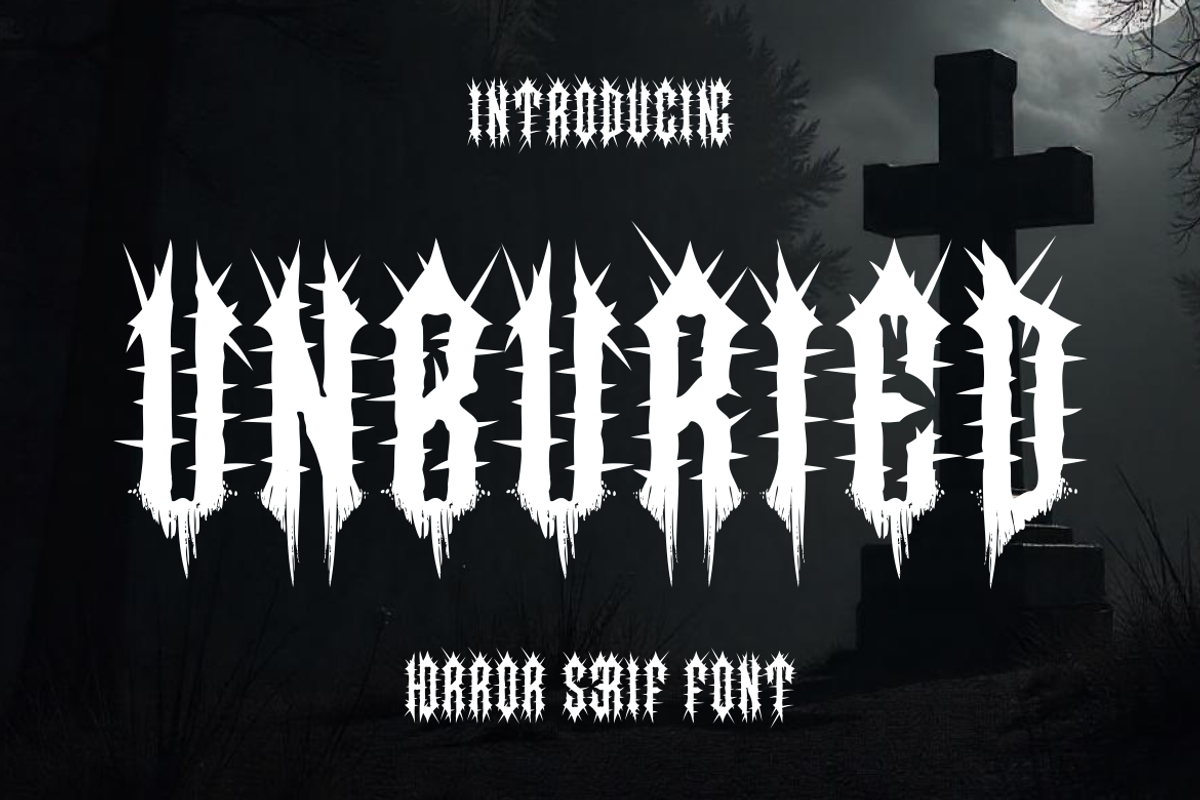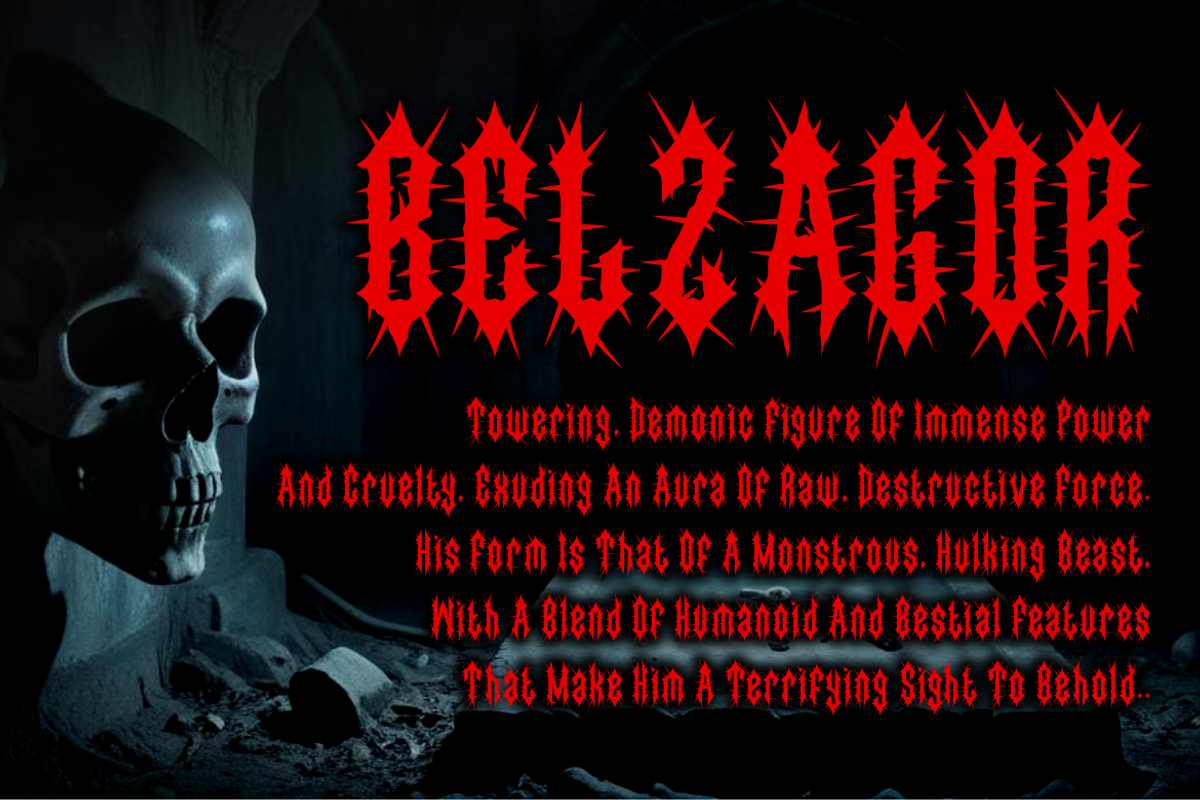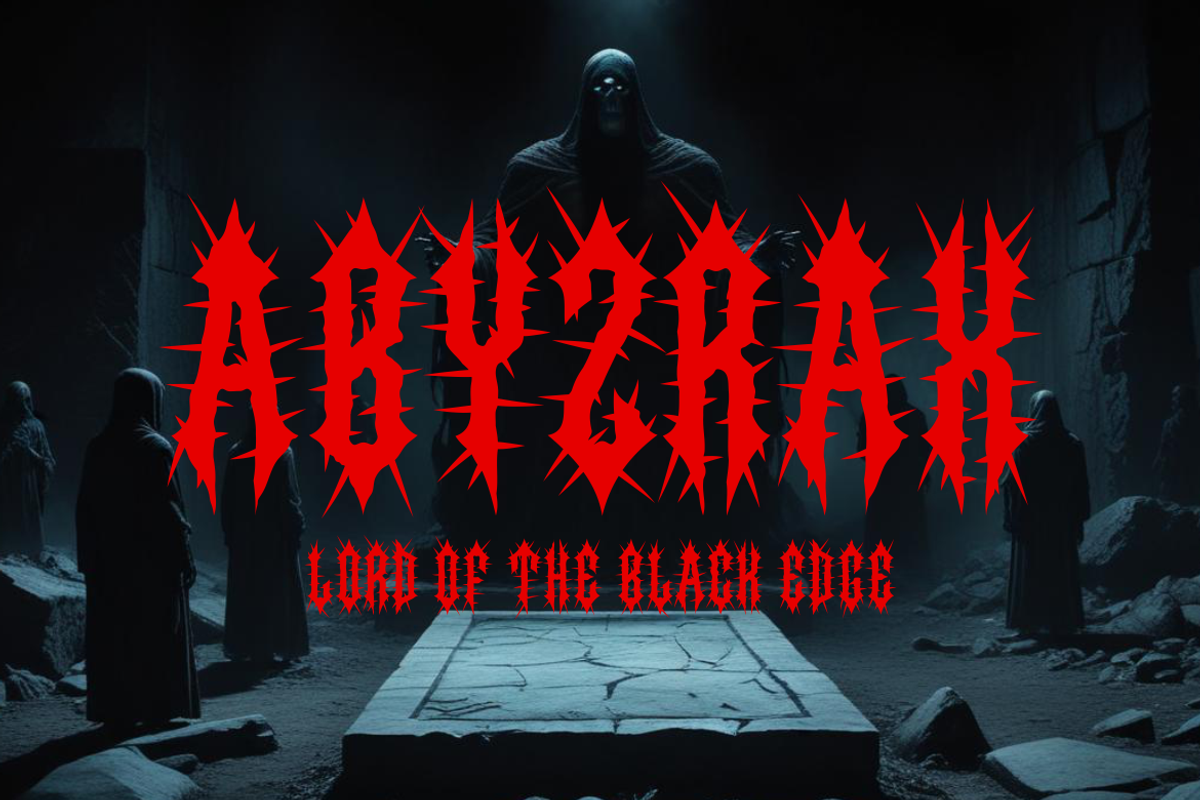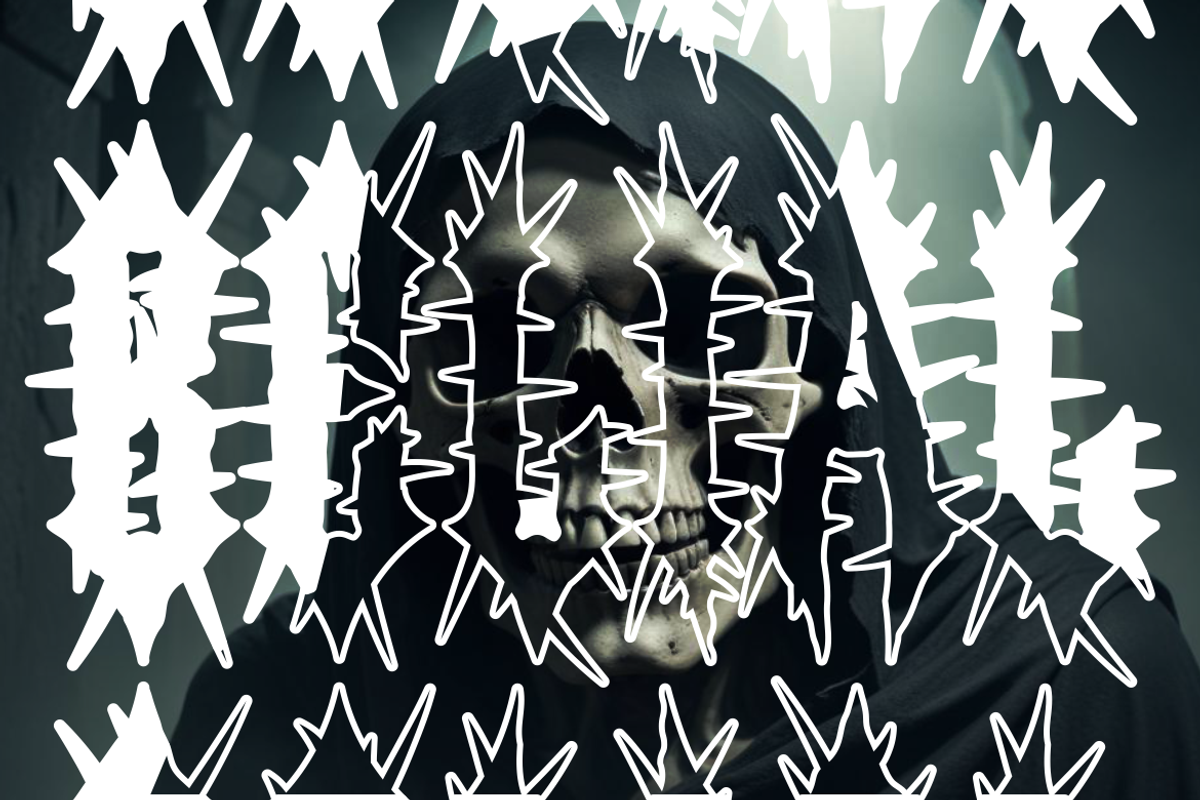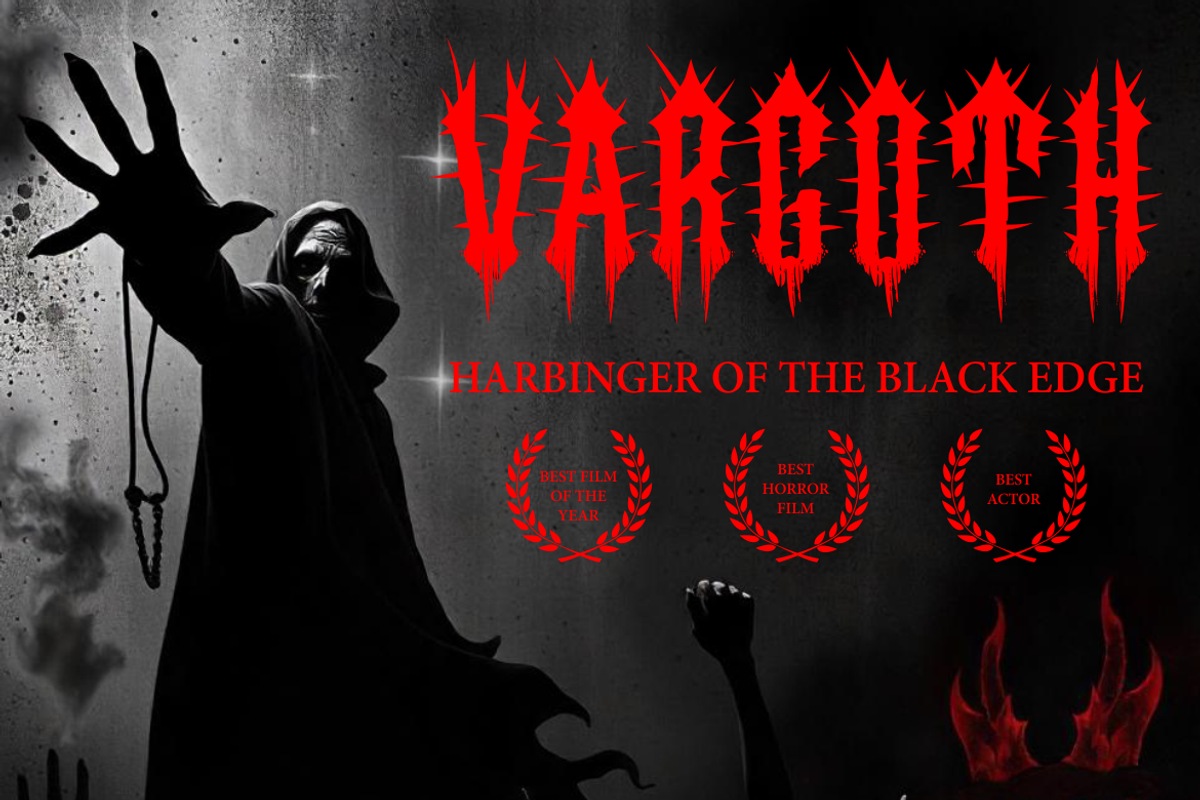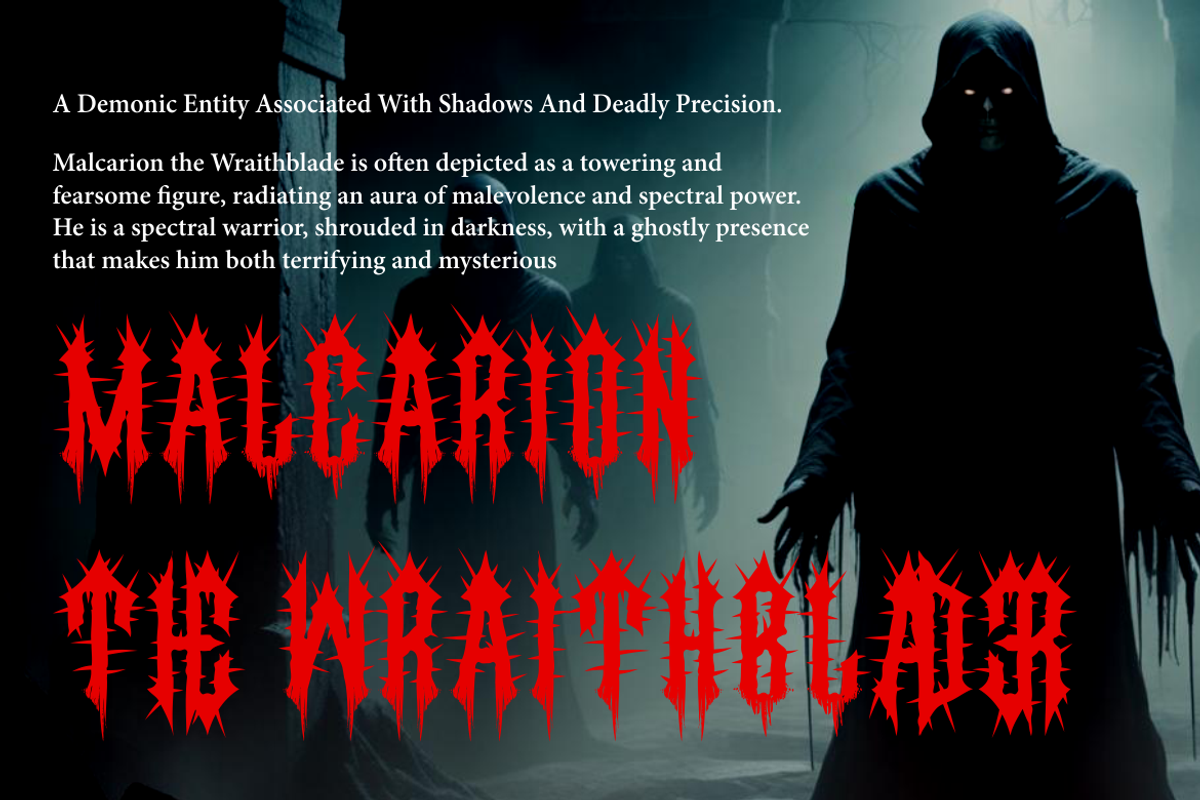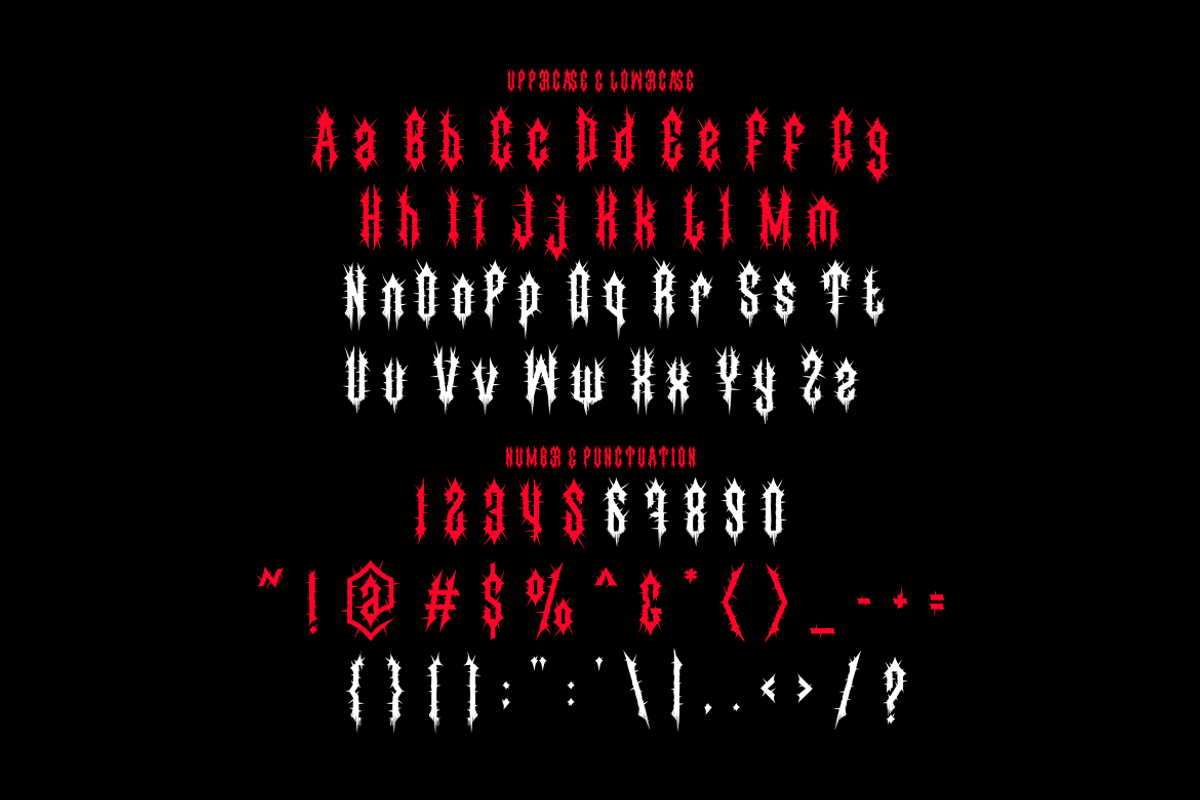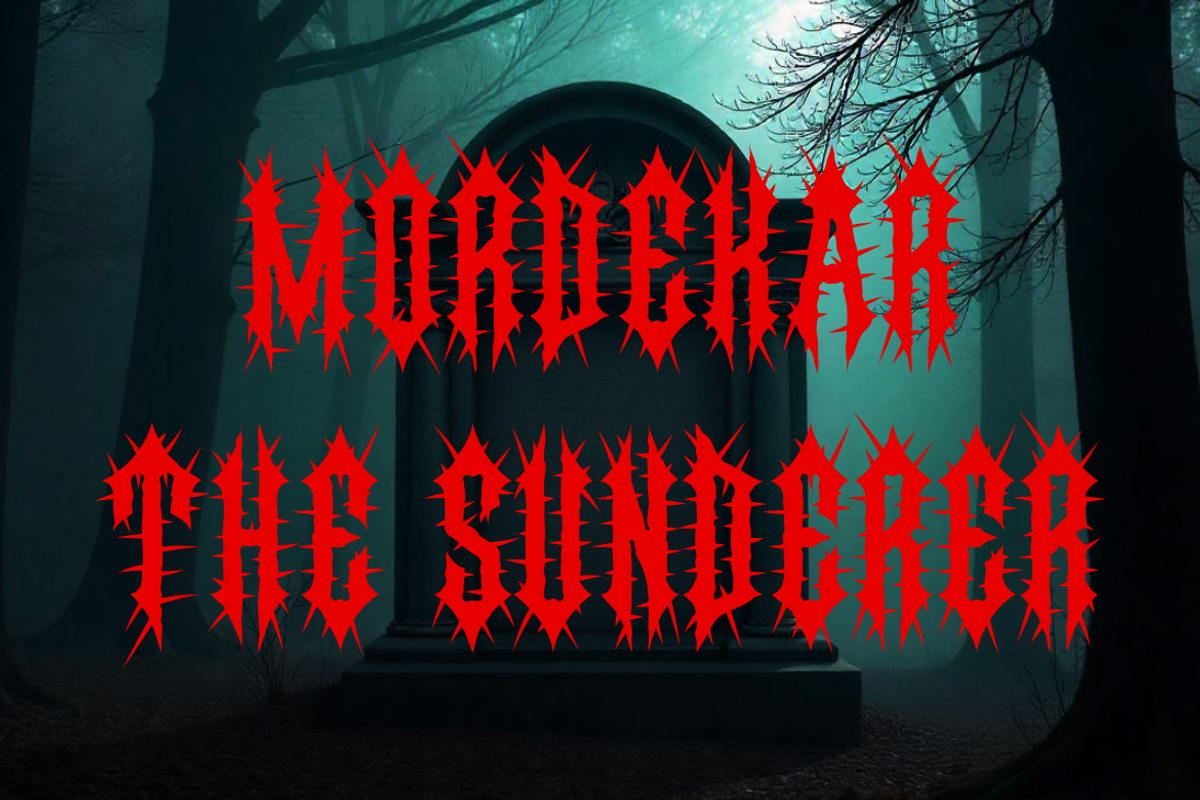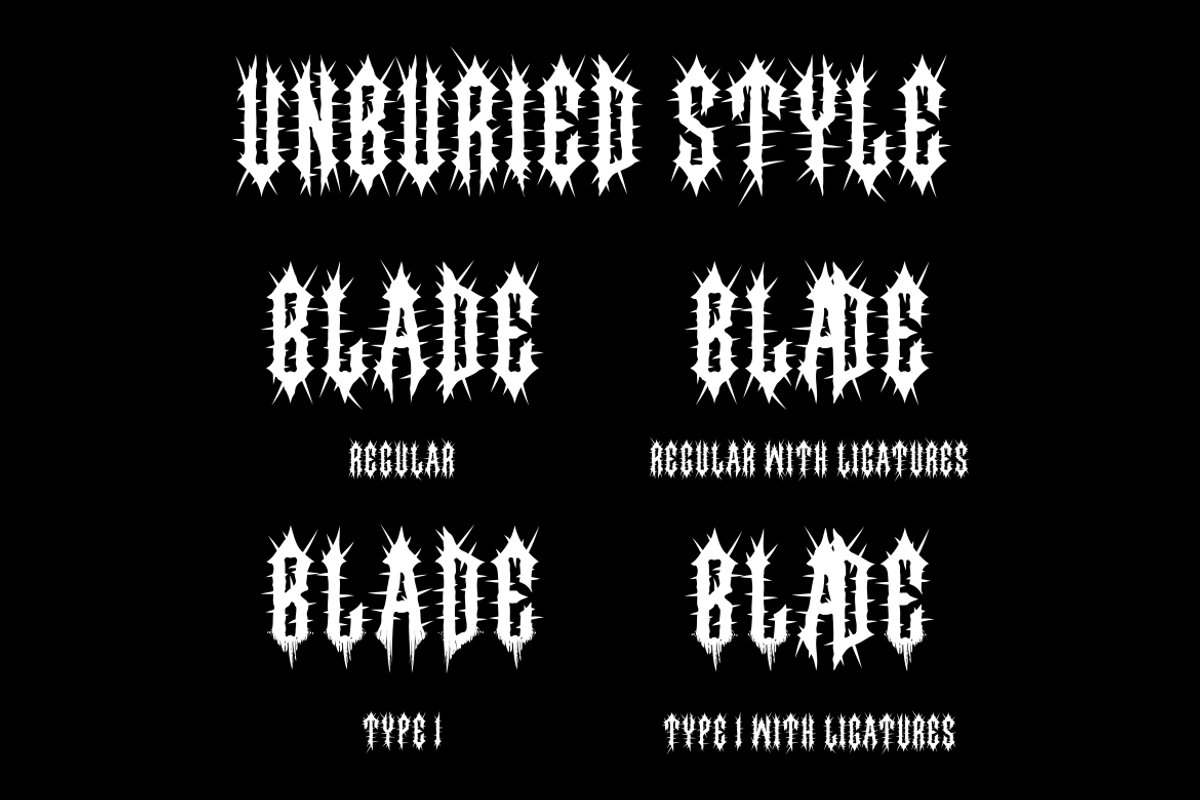
Unburied - Horror Serif Font
Unburied is a spine-chilling horror serif font designed to evoke a sense of darkness and fear. Its sharp, spiky edges and blackletter-inspired details create an intense, gothic aesthetic that’s perfect for horror-themed designs. Each letter drips with eerie precision, resembling jagged claws or ancient carvings, making it ideal for projects that demand a sinister and mysterious atmosphere. This font thrives in dark and haunting environments, as showcased against the backdrop of a shadowy graveyard with ominous crosses and moonlight. The high-contrast white lettering stands out vividly, amplifying its dramatic appeal.
Whether you’re designing for metal band logos, horror movie titles, spooky invitations, or macabre book covers, Unburied sets the tone with its edgy and death-metal-inspired style. Its versatility makes it suitable for branding, posters, packaging, and even crafting projects that need a touch of the uncanny. Let Unburied bring a hauntingly beautiful edge to your next design project.